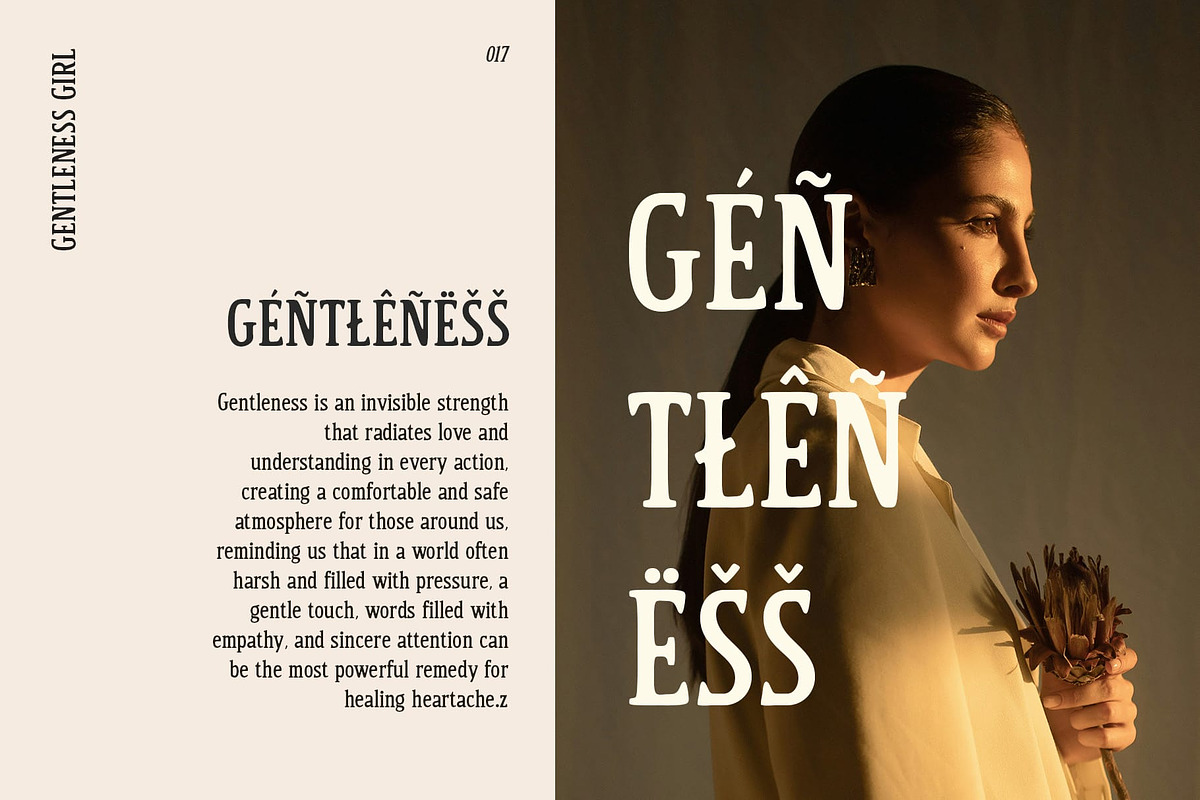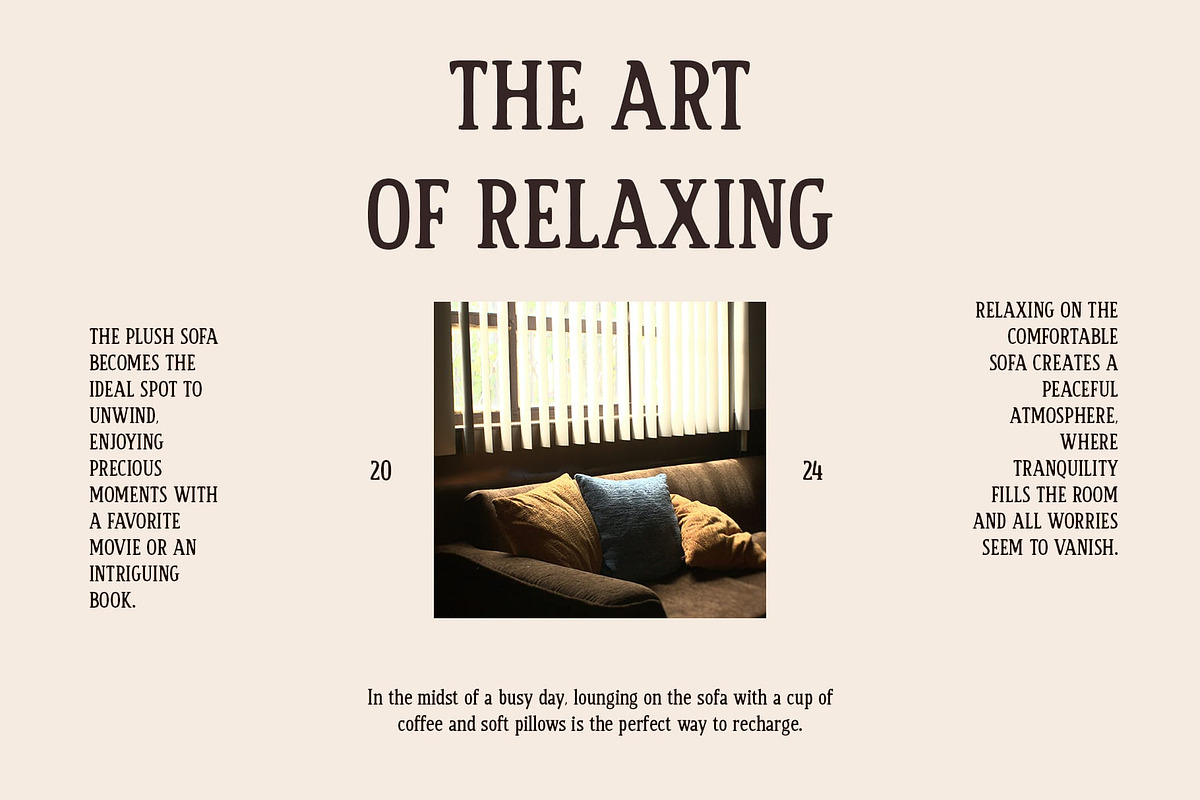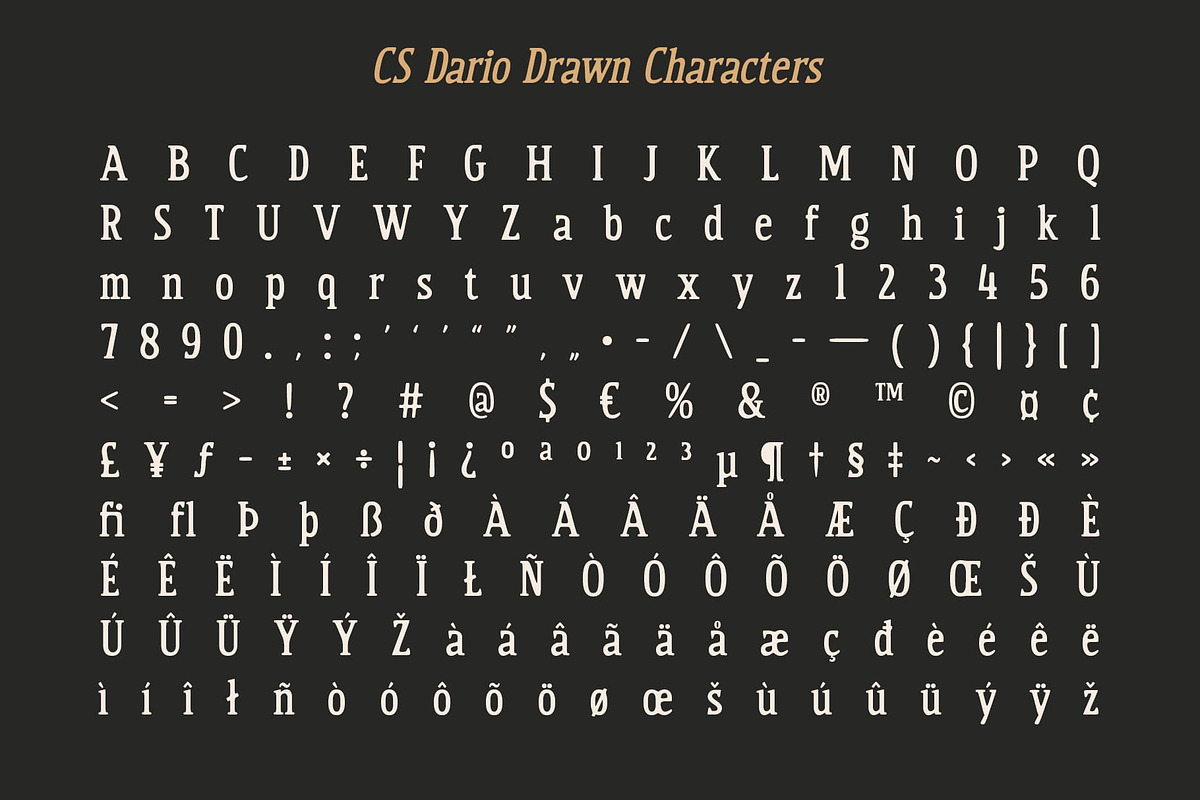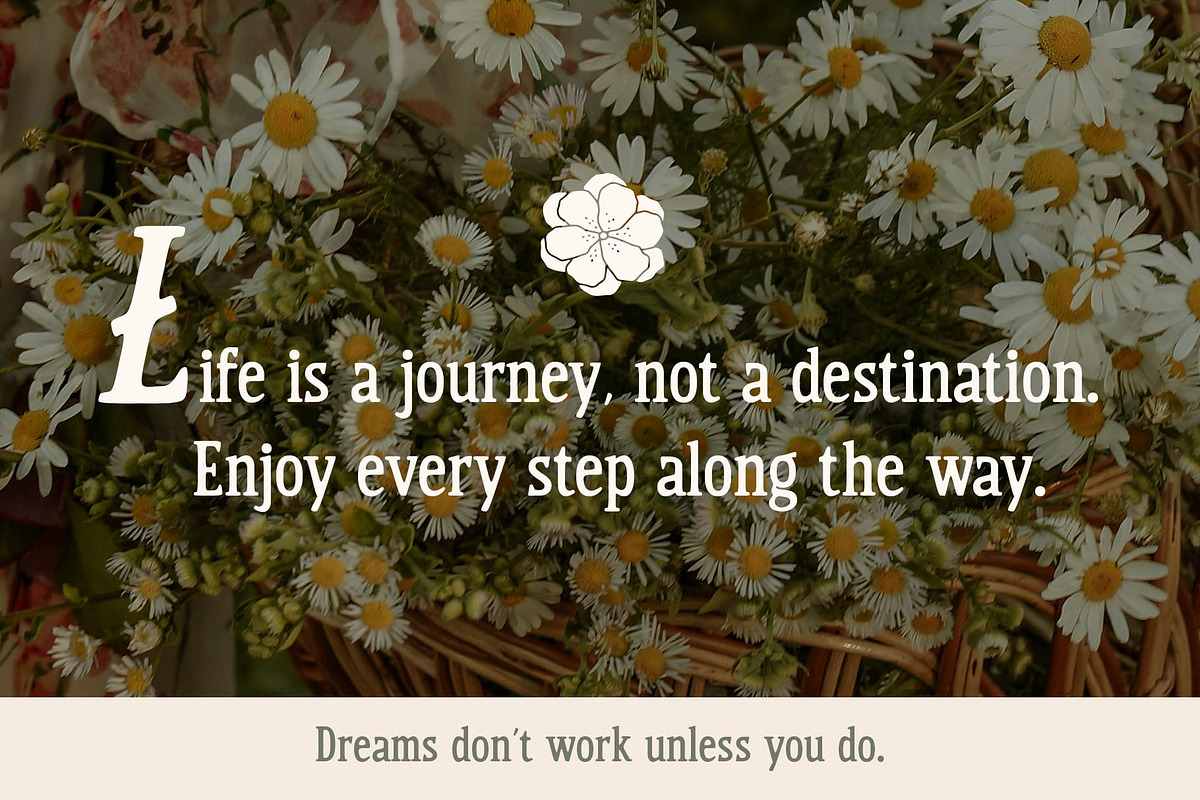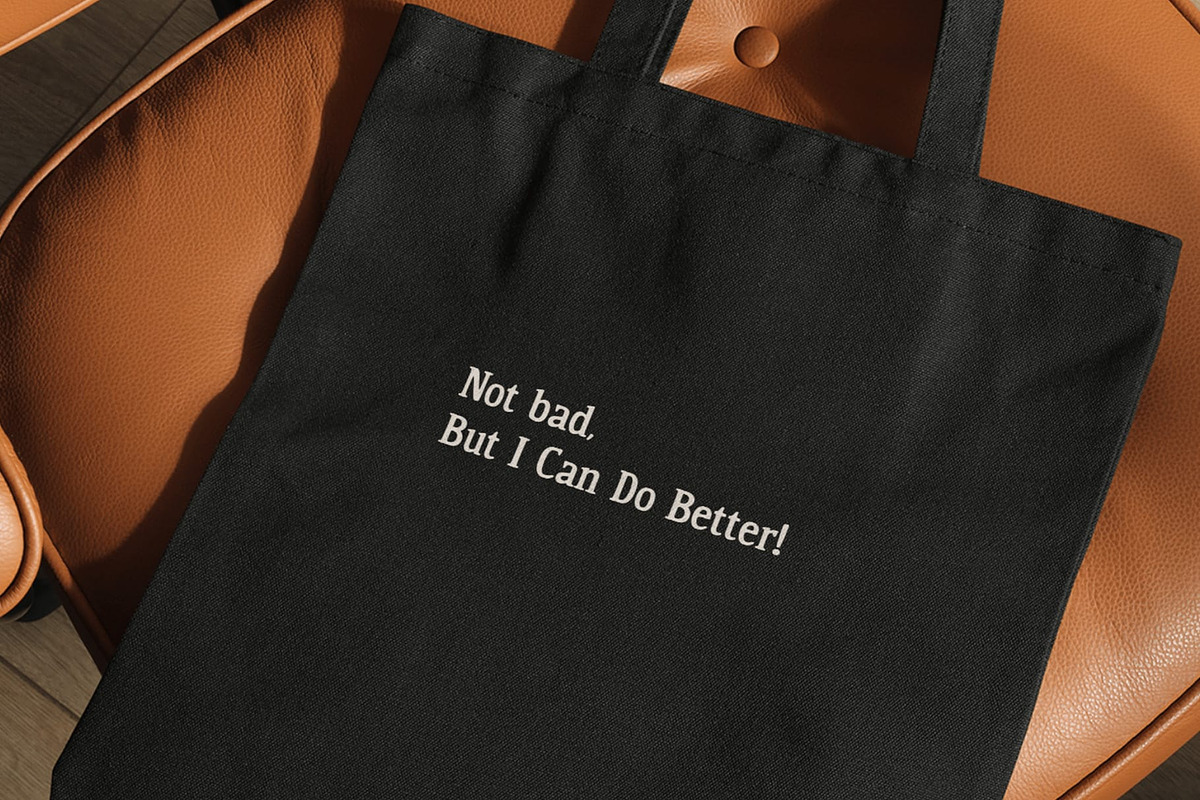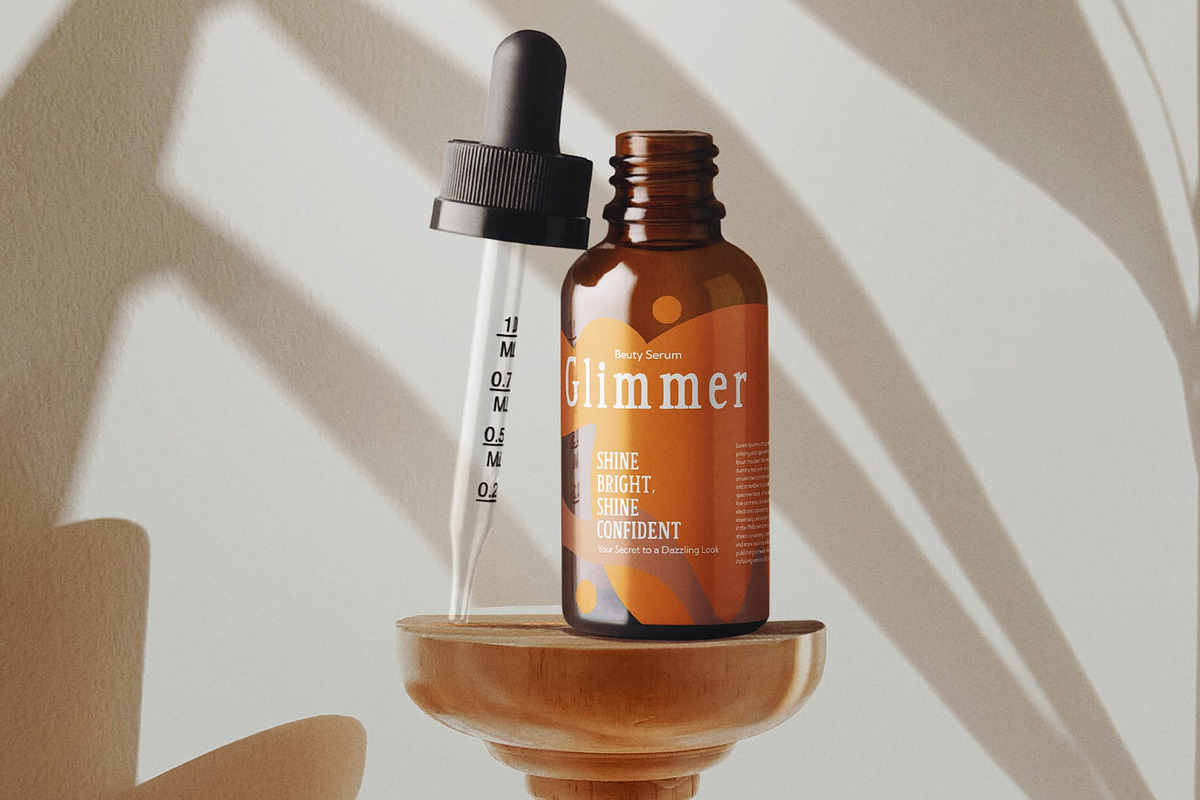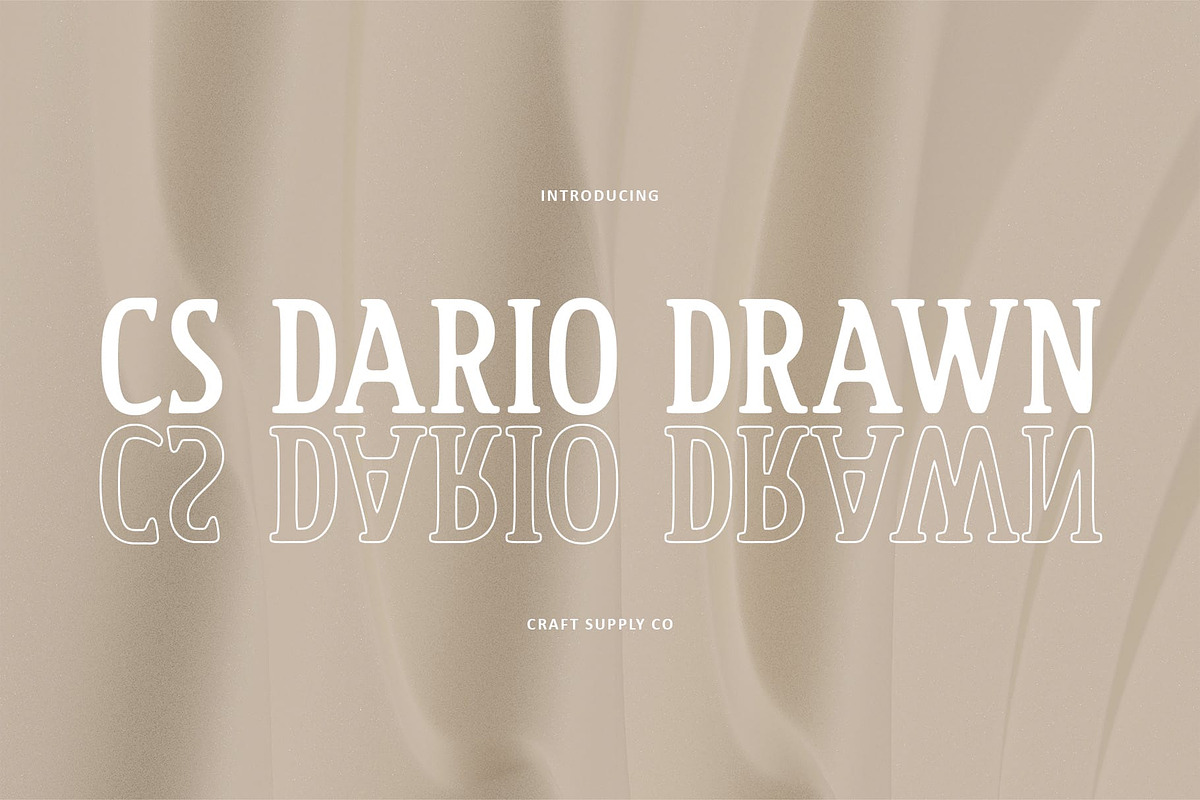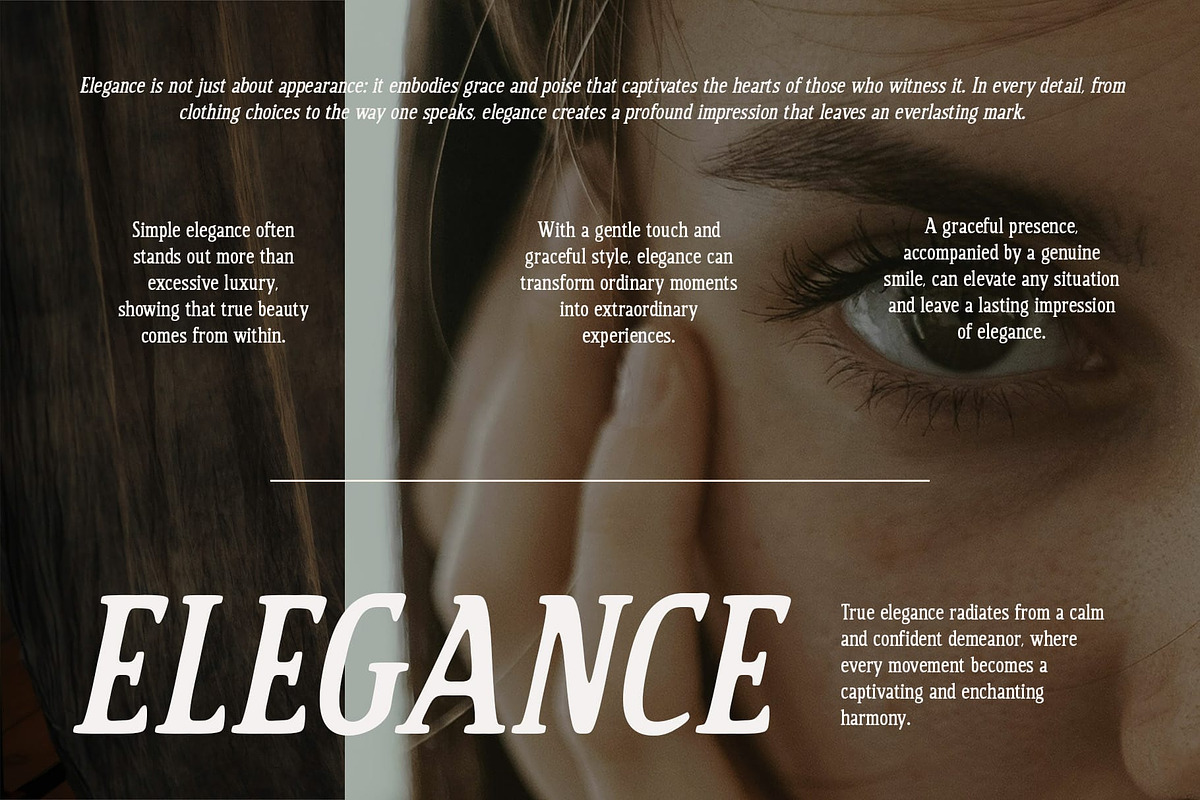
CS Dario Drawn
CS Dario Drawn – A Bold Serif Font with Artistic Flair
Classic Design Meets Handcrafted Creativity This is a bold, classic serif font that effortlessly combines the timeless strength of traditional serif typography with a distinct, artistic twist. Featuring thick, robust strokes and pronounced serif details, this font makes a striking statement. The drawn effect adds a handcrafted, personal touch, infusing each character with warmth and unique expression, making it perfect for designs that need to capture both strength and creativity.
Vintage Charm with a Modern Artistic Edge The thick, sharp letterforms of this drawn font evoke a sense of heritage and reliability, while the drawn accents breathe life and personality into the design. This combination gives the font a vintage, almost nostalgic feel, while maintaining a contemporary artistic quality that ensures it stands out in any modern design.
Perfect for Retro Branding and Iconic Designs Ideal for vintage-themed projects, retro branding, and editorial designs that seek to make a bold statement, this drawn font offers strong visual appeal. The handcrafted effect makes it particularly suitable for designs aiming to evoke a sense of authenticity and timeless character, while the font’s bold structure ensures that it commands attention.
- CS Dario Drawn Regular
- CS Dario Drawn Italic